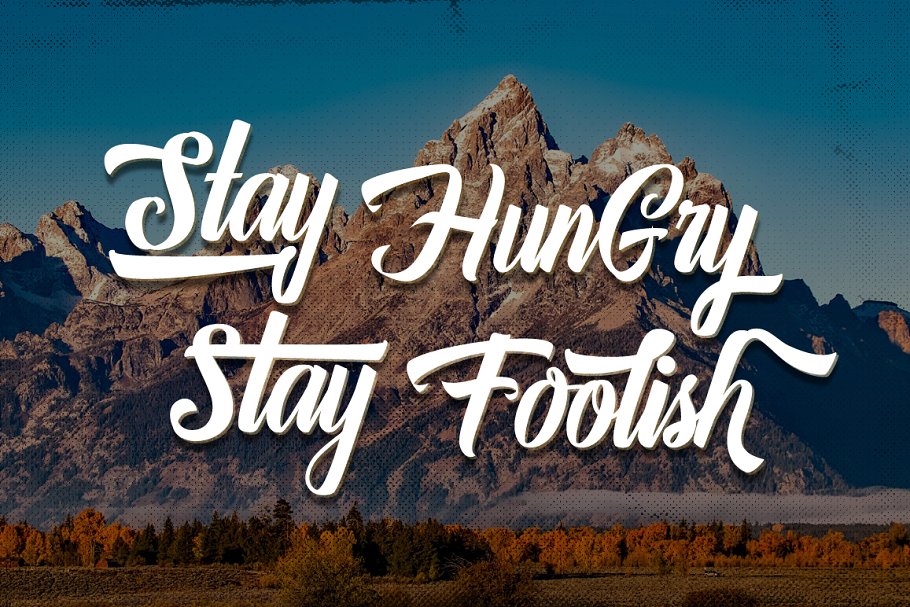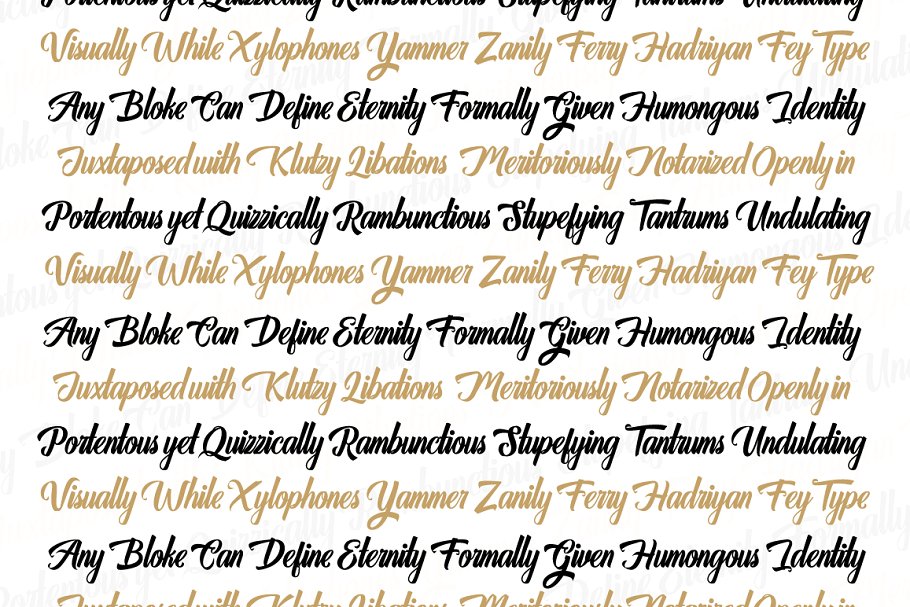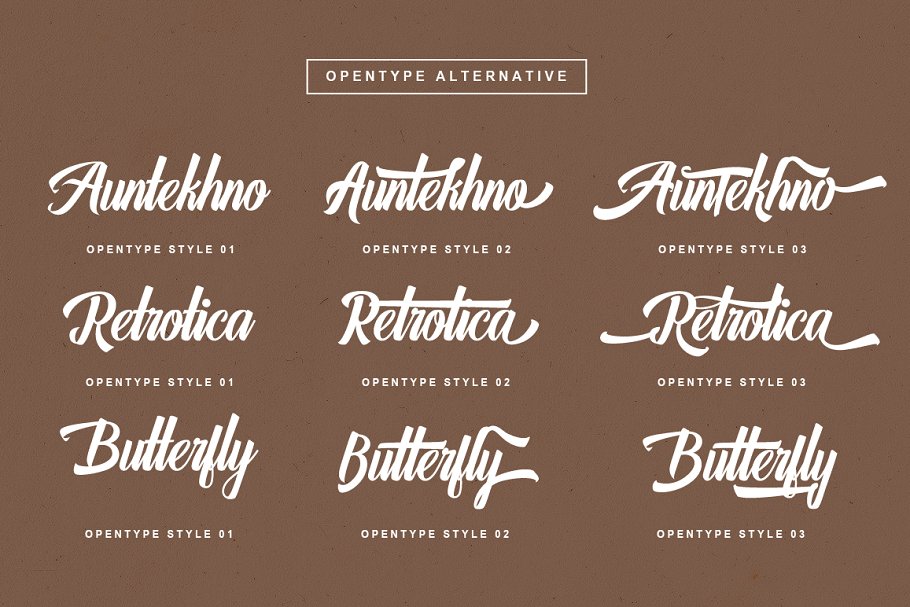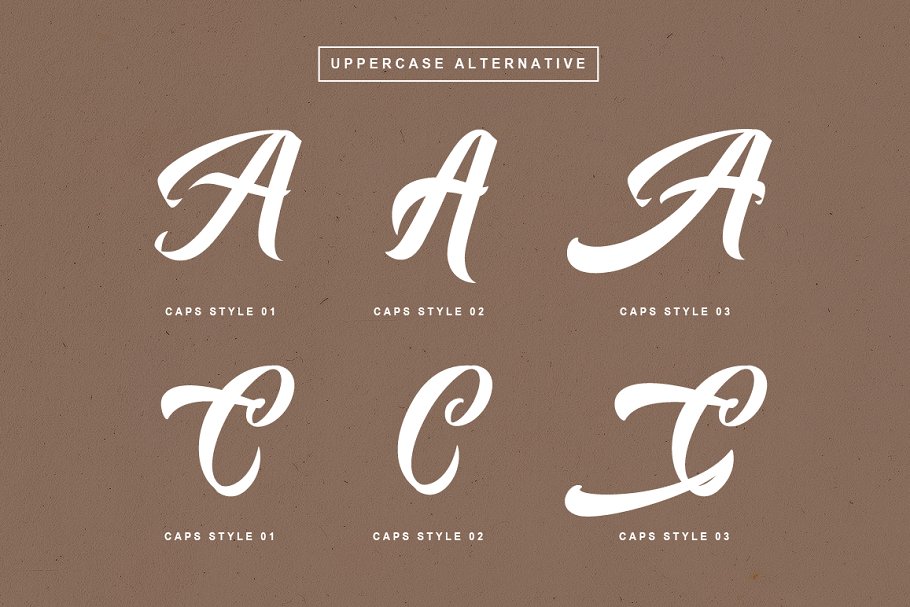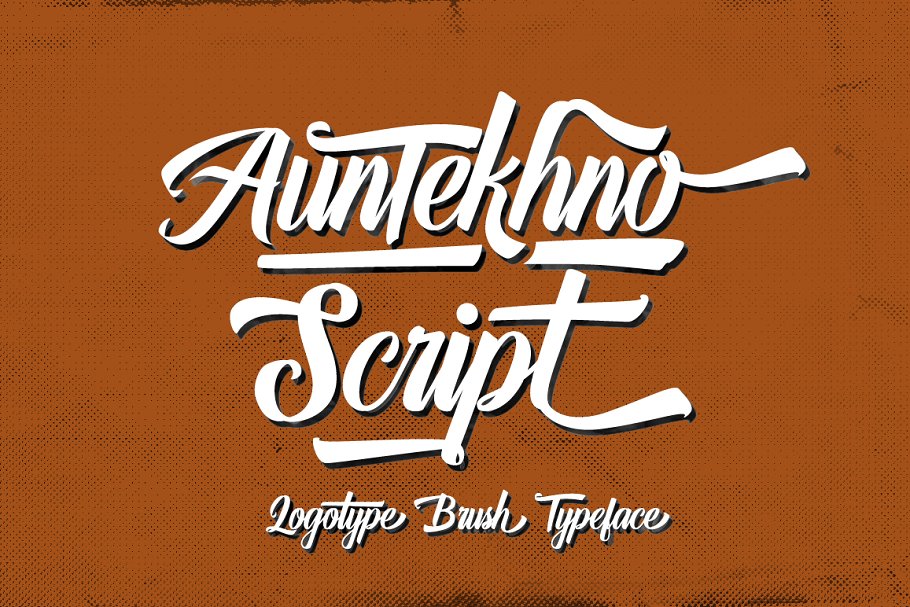
Auntekhno Script Font
Auntekhno Script Demo Font
A new logotype brush typeface. Introducing Auntekhno Font. Auntekhno – a new modern & fresh calligraphy font that comes with alternate and start & ending swashes, make this font looks natural, elegant, and perfect for any awesome projects. Auntekhno Script is Vintage Script Brush Font with Hand lettering Brush Style, so much opentype feature include of the font. Suitable for design, element design, wedding, event, t-shirt, logo, badges, sticker, and awesome work, etc…